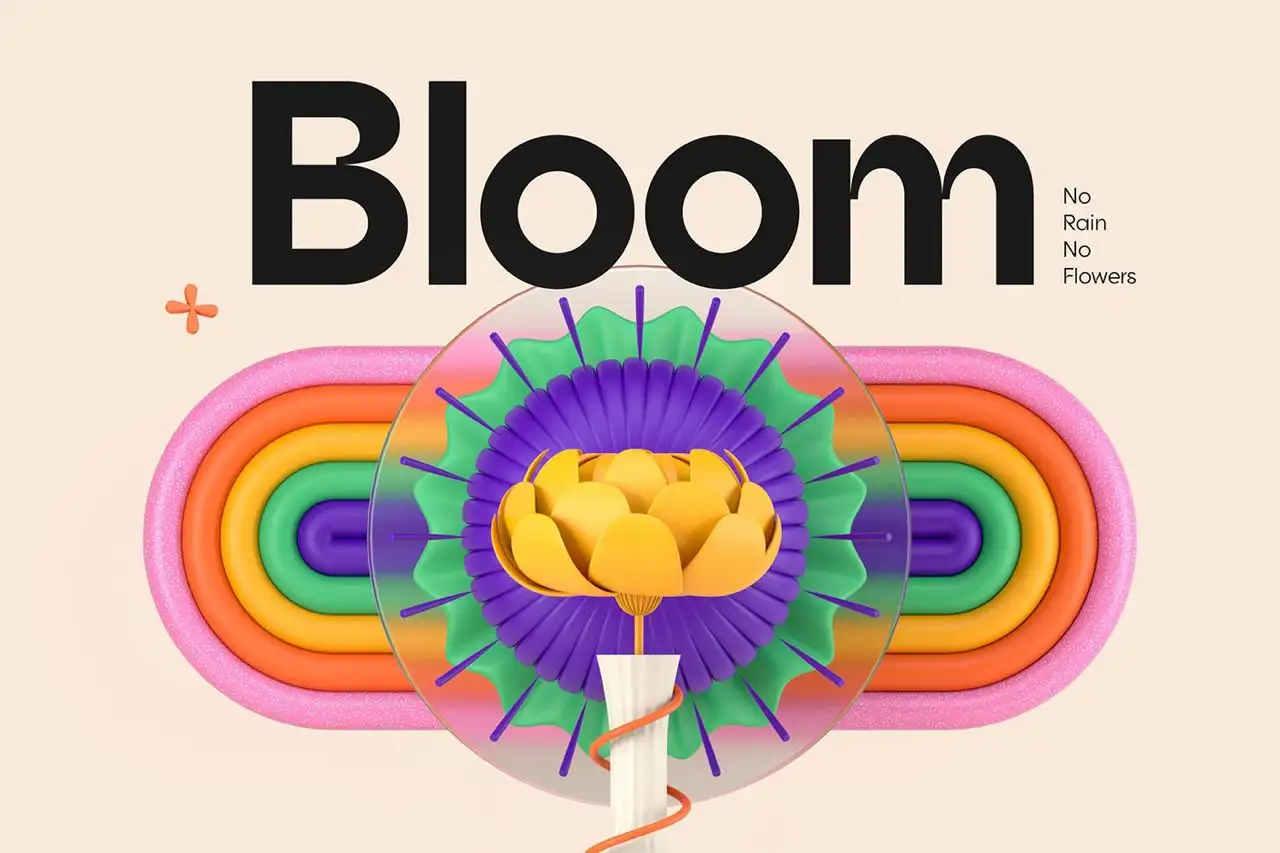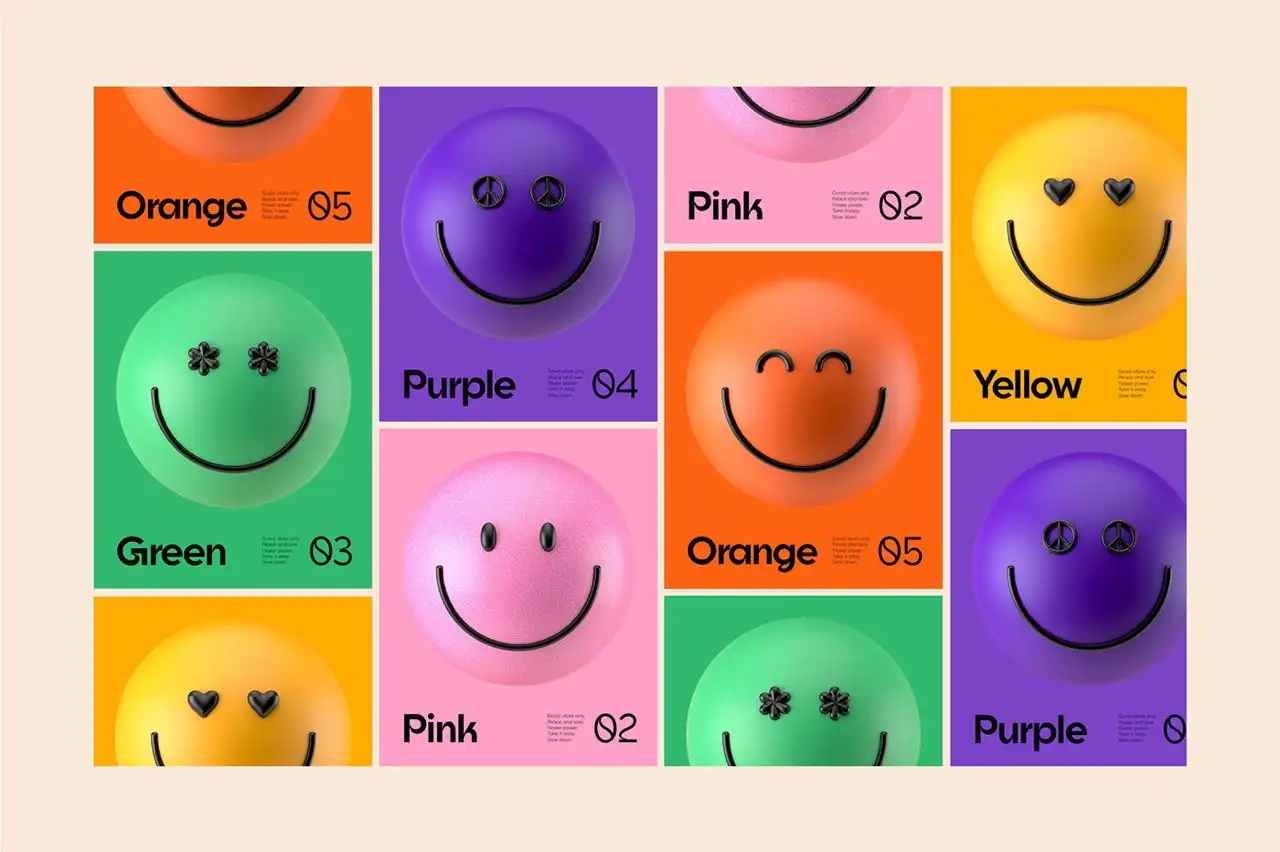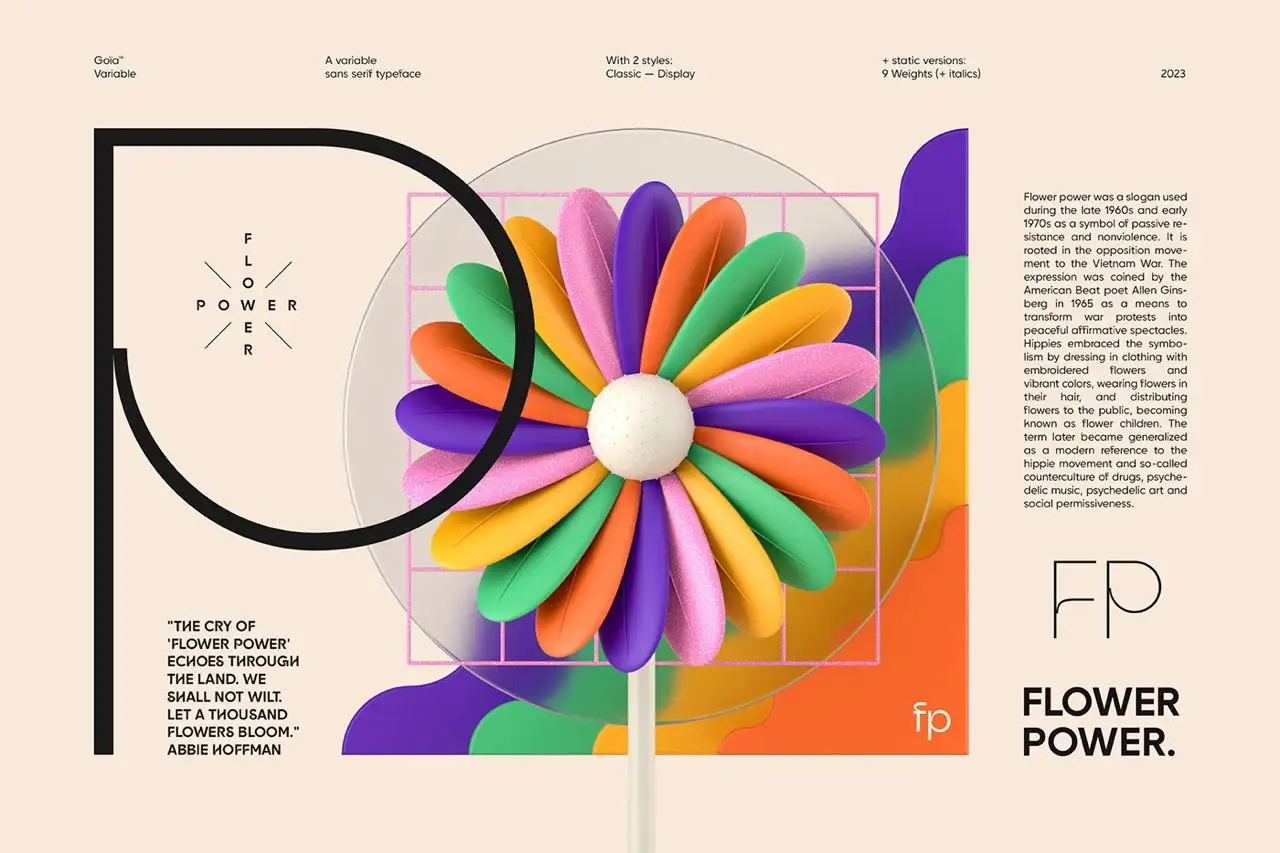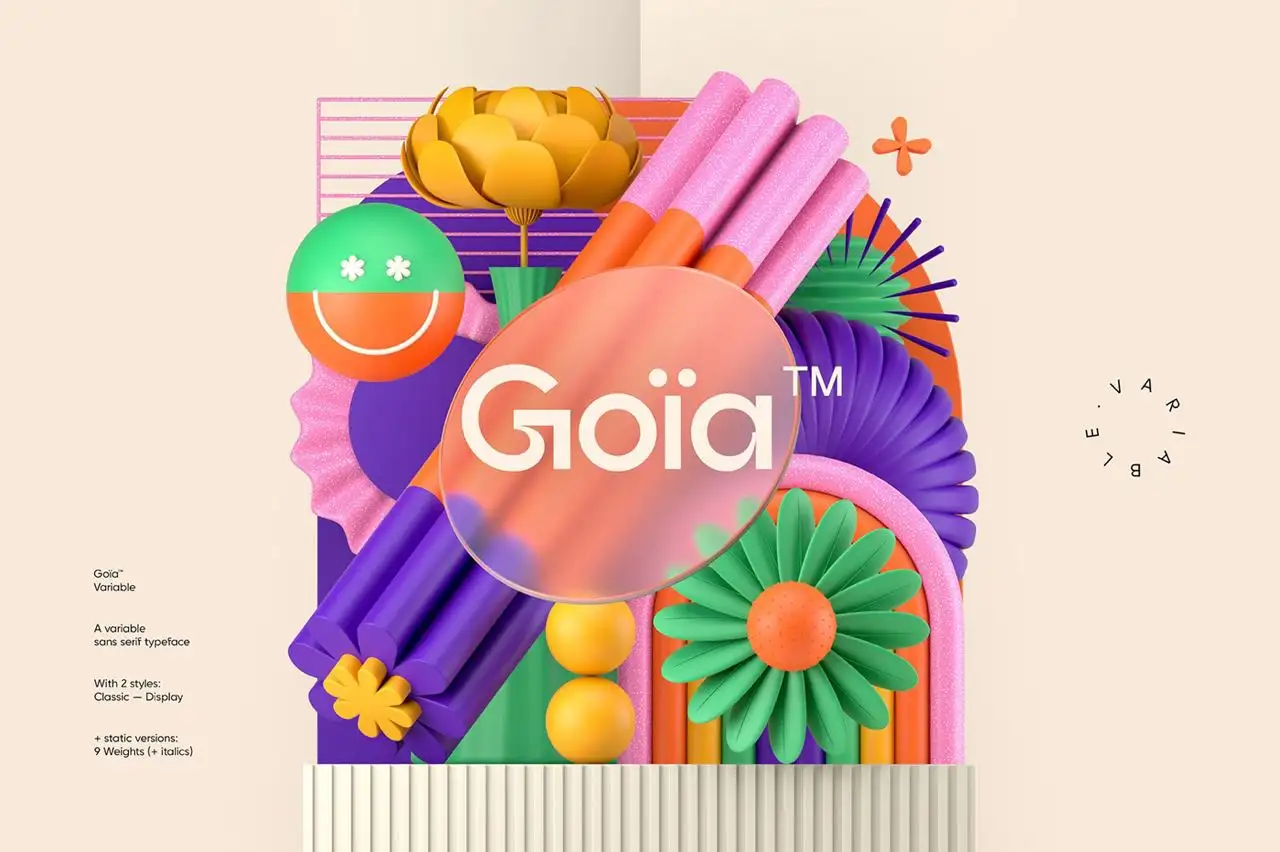
Welcome to the World of Goïa™ Variable Typeface!
Introducing the Goïa™ Variable Typeface by Almarena Creative! 🎨 This digital download offers instant access to a stunning font that adapts to your creative needs. Perfect for designers, artists, and anyone looking to add a touch of elegance to their projects, Goïa™ is not just a typeface; it’s a canvas for your imagination!
The Goïa™ Variable Typeface is a versatile font family that allows you to play with weight, width, and slant, giving you the freedom to create unique typographic designs. Whether you’re working on branding, invitations, or digital content, this typeface will help you express your vision beautifully. 🌟
- Variable Font Technology: Adjust weight and width for endless creative possibilities! ✏️
This typeface is ideal for:
- Graphic designers looking for flexibility in typography
- Branding professionals wanting to create distinctive logos
- Web designers who need a modern touch
- Creative writers and bloggers aiming for unique presentation